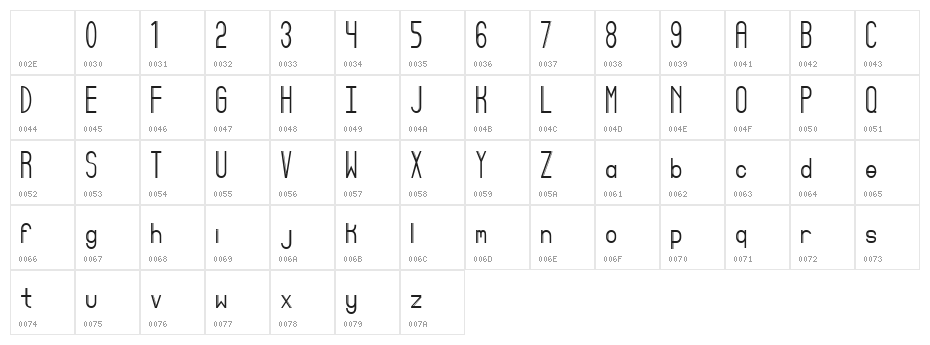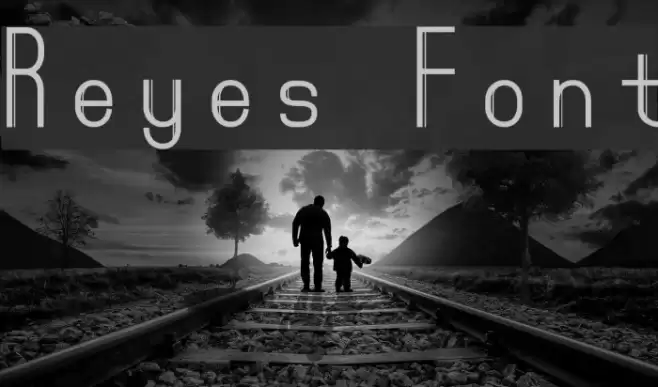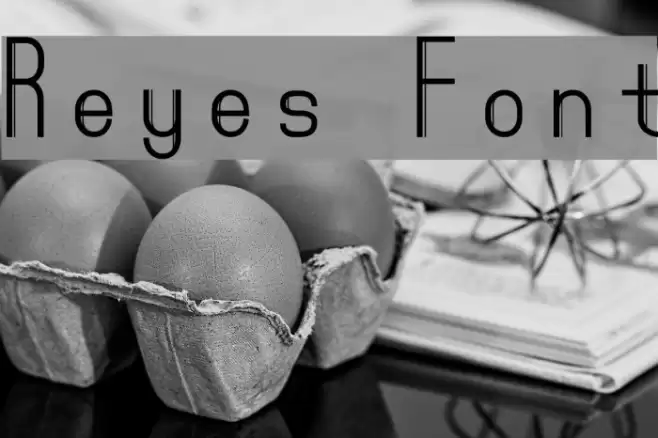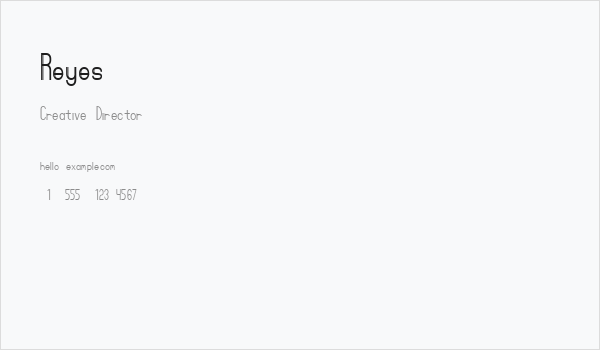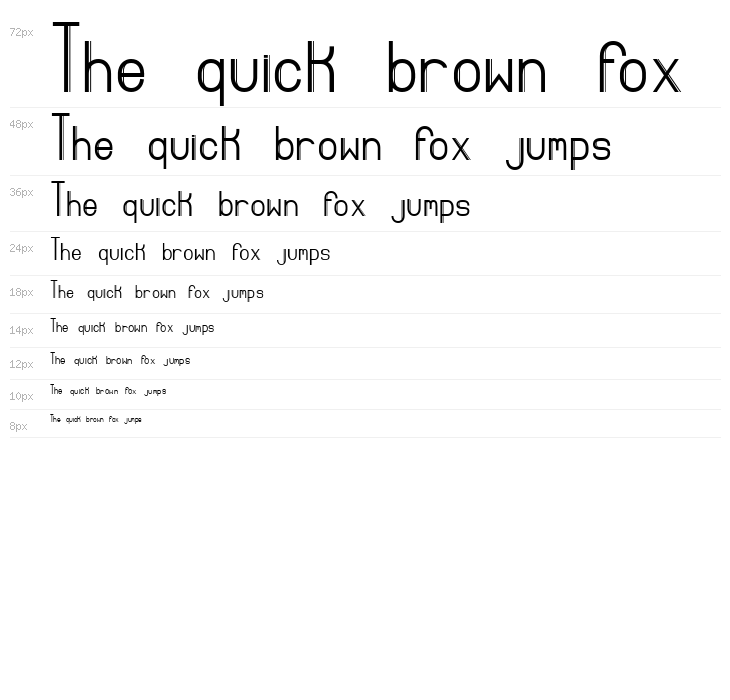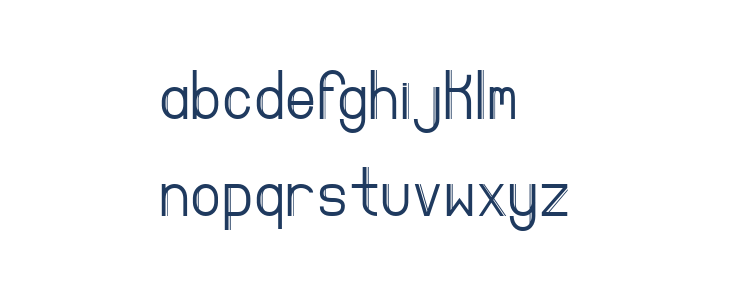
Reyes Font
Reyes Description
This font exhibits a modern and sleek design with elongated, narrow characters that create a sense of elegance and sophistication. The uppercase letters are tall and slender, with a consistent stroke width that gives a uniform appearance. The lowercase letters maintain the same narrow structure, enhancing readability while preserving the font's stylish look. The numerals are similarly designed, ensuring a cohesive aesthetic throughout. Special characters are crafted with the same attention to detail, making this font versatile for various applications.